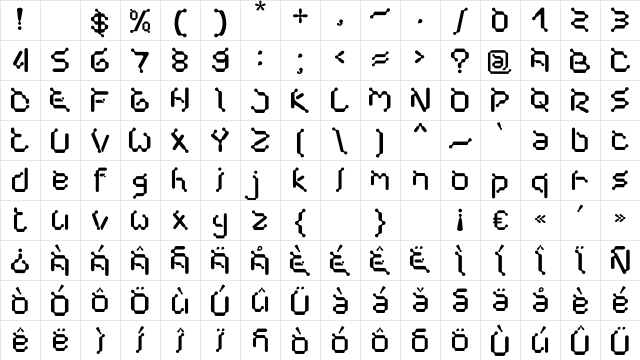
Cybernet Regular
| Designer | Mauricio Gomez |
Design Context for Cybernet Typeface
Cybernet channels digital-age aesthetics through its sharp, structured letterforms — ideal for brands that want to signal innovation.
Pro Tip: Try Cybernet with generous letter-spacing in UI labels and navigation — the geometric forms benefit from room to breathe.